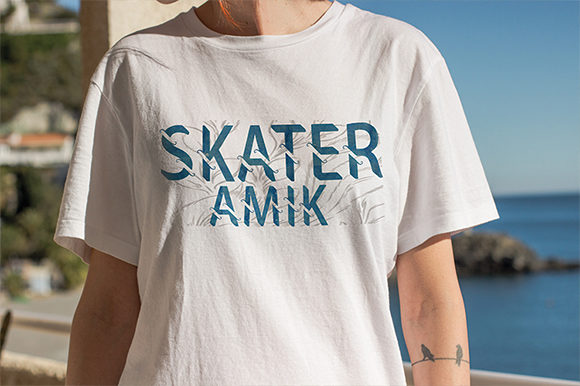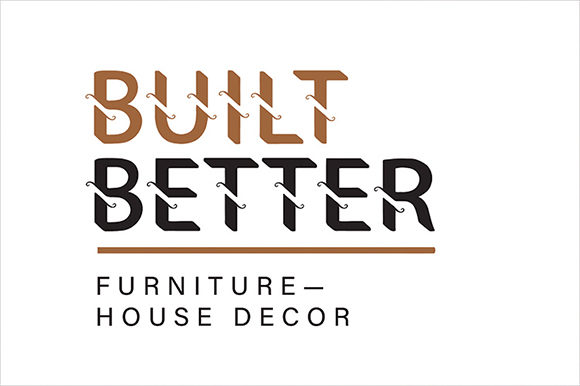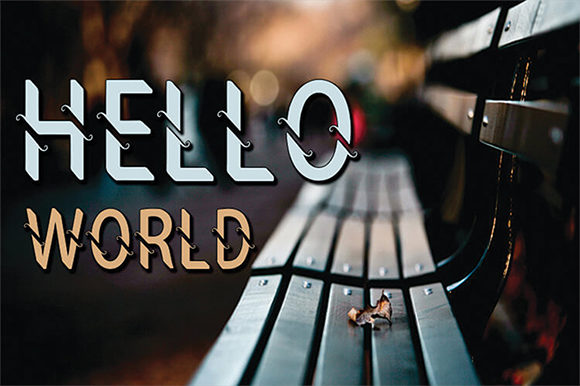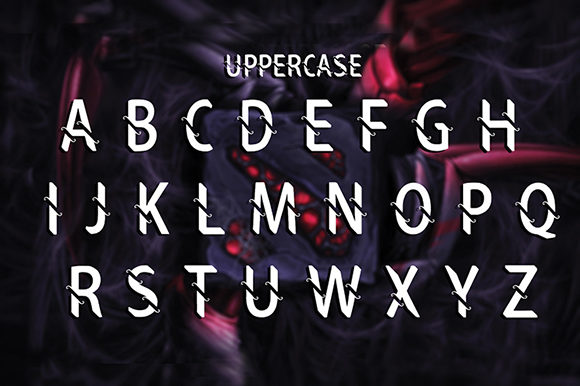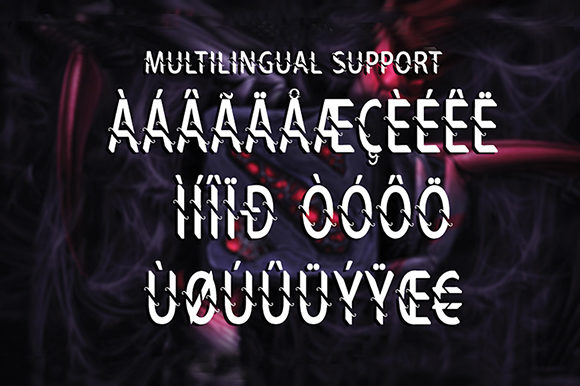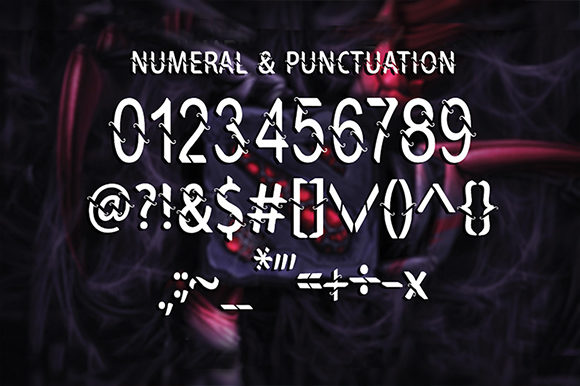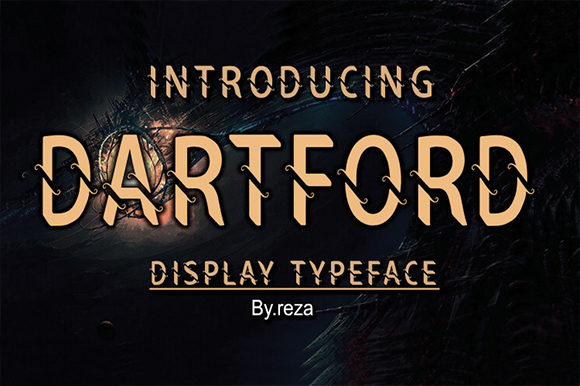
Dartford Font: Elevate Your Designs with a Bold and Neat Lettered Display Font
Are you tired of using the same old fonts in your designs? Do you want to make your creative projects stand out from the crowd? Look no further than the Dartford Font, a bold and neat lettered display font that’s sure to take your designs to the next level. In this article, we’ll explore the features and benefits of the Dartford Font, and show you how to incorporate it into your creative workflow.
What is Dartford Font?
Dartford Font is a modern, sans-serif display font that’s designed to make a statement. Its bold and neat lettering style makes it perfect for headlines, titles, and other design elements where you want to grab attention. The font is highly legible, even at small sizes, making it versatile for use in a variety of design applications.
Key Features of Dartford Font
- Bold and Neat Lettering Style: The Dartford Font features a bold and neat lettering style that’s perfect for making a statement in your designs.
- Highly Legible: The font is designed to be highly legible, even at small sizes, making it perfect for use in a variety of design applications.
- Modern and Fresh: The Dartford Font has a modern and fresh feel that’s perfect for designers and crafters who want to create unique and eye-catching designs.
- Easy to Read: The font is easy to read, even for viewers with visual impairments, making it a great choice for designs that need to be accessible.
Benefits of Using Dartford Font
So why should you choose the Dartford Font for your designs? Here are just a few benefits of using this versatile font:
- Adds Visual Interest: The bold and neat lettering style of the Dartford Font adds visual interest to your designs, making them more engaging and attention-grabbing.
- Versatile: The font is highly versatile and can be used in a variety of design applications, from print materials to digital designs.
- Easy to Pair: The Dartford Font is easy to pair with other fonts, making it simple to create a cohesive look in your designs.
- Perfect for Branding: The font is perfect for branding and advertising designs, where you want to make a bold statement and grab attention.
How to Use Dartford Font in Your Designs
So how can you incorporate the Dartford Font into your designs? Here are a few ideas to get you started:
- Headlines and Titles: Use the Dartford Font for headlines and titles in your designs, where you want to make a bold statement and grab attention.
- Logos and Branding: The font is perfect for logos and branding designs, where you want to create a bold and memorable visual identity.
- Posters and Flyers: Use the Dartford Font in posters and flyers, where you want to grab attention and communicate a message quickly and effectively.
- Digital Designs: The font is also perfect for digital designs, such as social media graphics, website headers, and more.
Tips for Pairing Dartford Font with Other Fonts
Pairing the Dartford Font with other fonts can help create a cohesive look in your designs. Here are a few tips for pairing the Dartford Font with other fonts:
- Pair with a Serif Font: Pairing the Dartford Font with a serif font can create a nice contrast and add visual interest to your designs.
- Pair with a Script Font: Pairing the Dartford Font with a script font can add a touch of elegance and sophistication to your designs.
- Experiment with Font Sizes: Experimenting with font sizes can help create a visually appealing hierarchy in your designs.
| Font Name | Dartford Font |
The Dartford Font is a bold and neat lettered display font that’s perfect for designers and crafters who want to create unique and eye-catching designs. With its highly legible lettering style and modern feel, it’s perfect for use in a variety of design applications. Whether you’re creating headlines, titles, logos, or branding designs, the Dartford Font is a great choice. So why not add it to your creative workflow and see how it can elevate your designs?